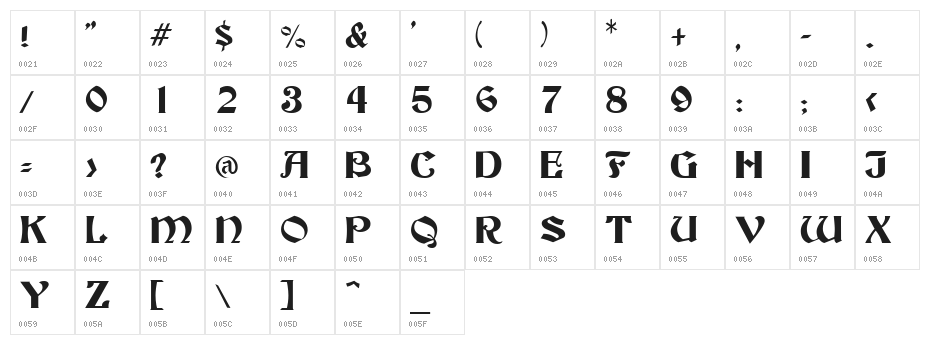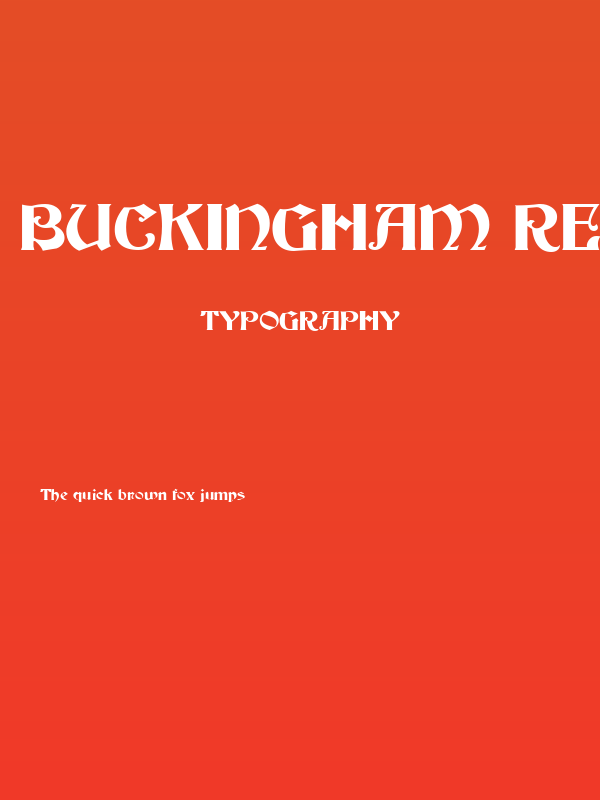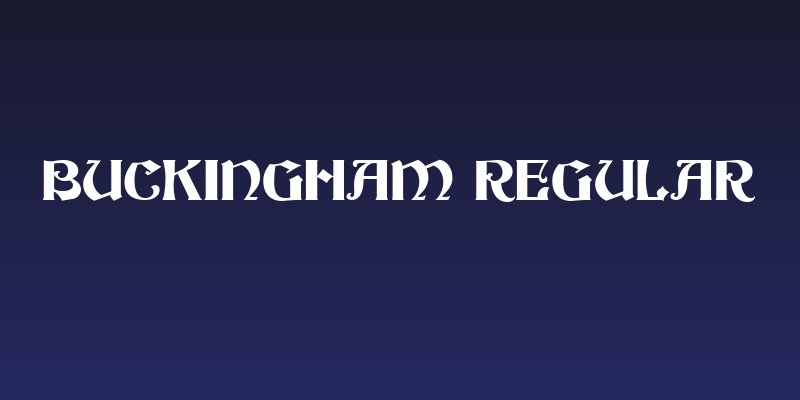
Buckingham Regular Font
✎ Decorative
| Gesamtstil | Vintage |
| Anwendungsfall | Headlines, Logos, Decorative text |
| Vorgeschlagene Projekte | Ideal for projects requiring a historical or traditional feel, such as book covers, posters, or branding for luxury products. |